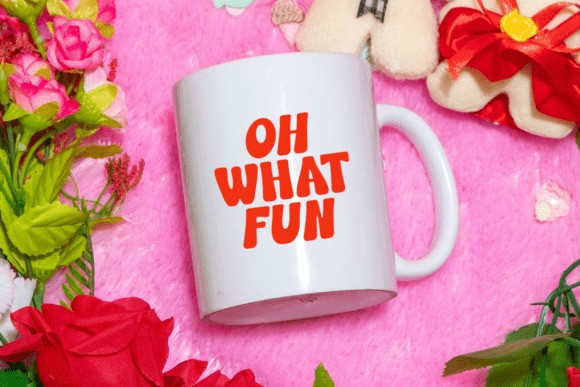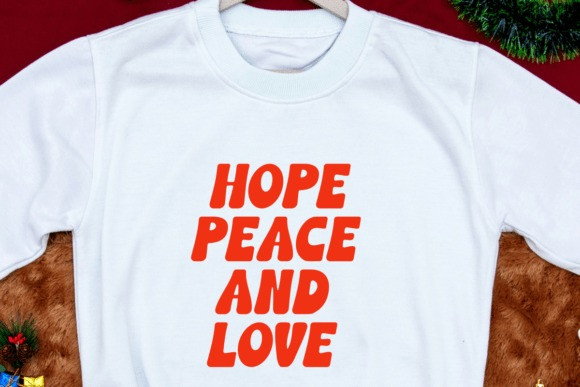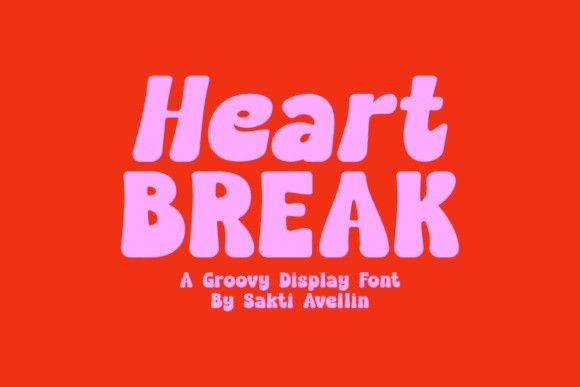
Heart Break Font
Haert Break Font, a charismatic and retro-inspired typeface that effortlessly combines sophistication and fun. Awash with a groovy vintage feel, this font infuses every expression with a touch of nostalgia. Imagine your favorite quotes rendered in Haert Break, or the impact it would make on t-shirts, evoking a blend of classical style and modern flair. It adds an inviting charm to invitation cards, lends a playful elegance to mugs, and transforms your tote bags into accessories that do the talking. Picture your messages on posters popping with its retro appeal, and imagine headlines grabbing attention with its stylish allure. In essence, Haert Break is more than just a font; it’s a journey back in time, a statement in the present and a provocative glimpse into the future. Experience the vivacity of Haert Break and watch your designs come alive!